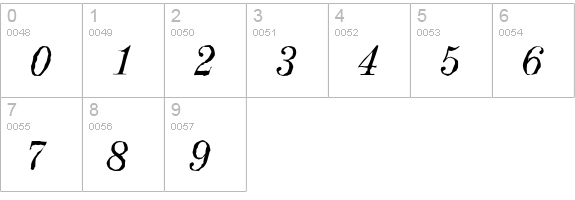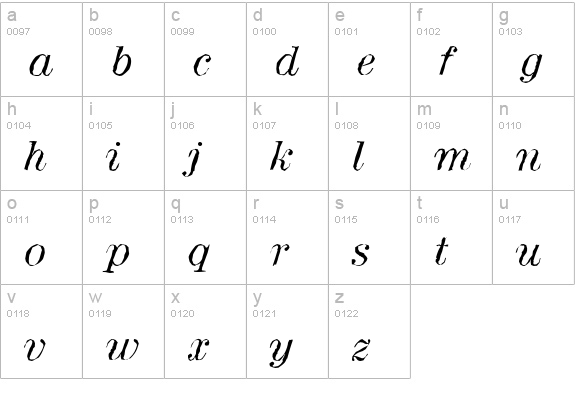
ValenciaAntique-Italic Font Details
ValenciaAntique-Italic is a distinctive, italic variant in the ValenciaAntique typeface family \xE2\x80\x94 well suited to design and typography projects.
ValenciaAntique-Italic is a timeless and elegant font that exudes a sense of nostalgia and sophistication. Its intricate design and delicate curves make it perfect for adding a touch of vintage charm to any project. This italic font is reminiscent of classic calligraphy styles, with a unique flair that sets it apart from the rest. Best of all, ValenciaAntique-Italic is available for free download at FontsMarket.com. Whether you're working on a wedding invitation, a logo design, or any other creative project, this font will add a touch of class and elegance. Embrace the beauty of the past with ValenciaAntique-Italic and bring a touch of old-world charm to your designs.